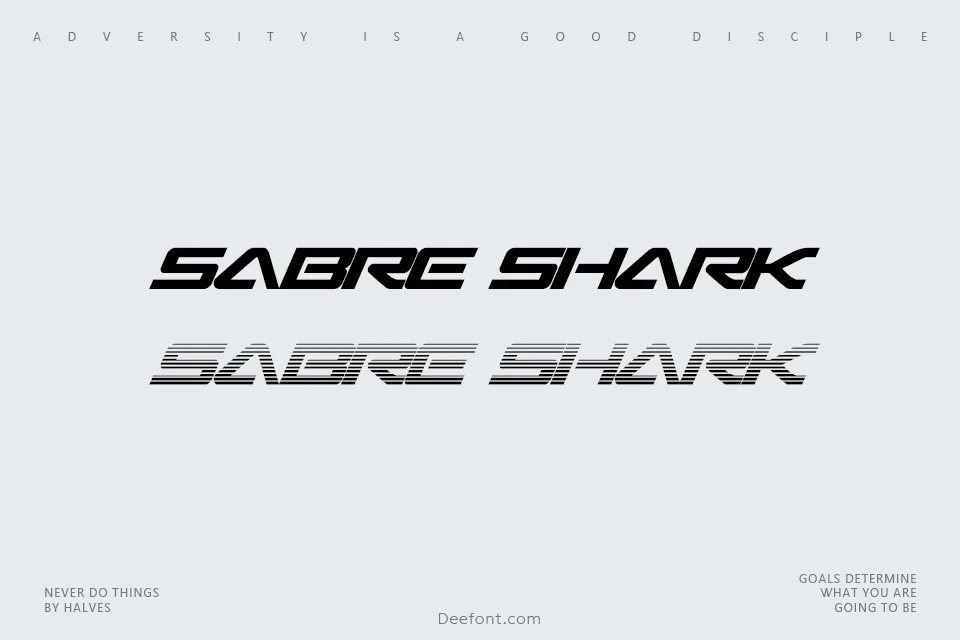
Sabre Shark Font
Sabre Shark is a bold and dynamic futuristic font featuring sharp, angular edges and geometric letterforms with a powerful sci-fi aesthetic. This versatile typeface is available in 29 distinctive variations, including regular, semi-bold, bold styles combined with semi-straight, italic, condensed, and expanded widths. Perfect for technology-focused designs, gaming interfaces, posters, and modern digital projects, Sabre Shark delivers a commanding presence with its contemporary, innovative appearance that combines angular precision with futuristic flair. The font’s dynamic slant and geometric construction make it an excellent choice for headlines, branding, and creative typography that demands visual impact.